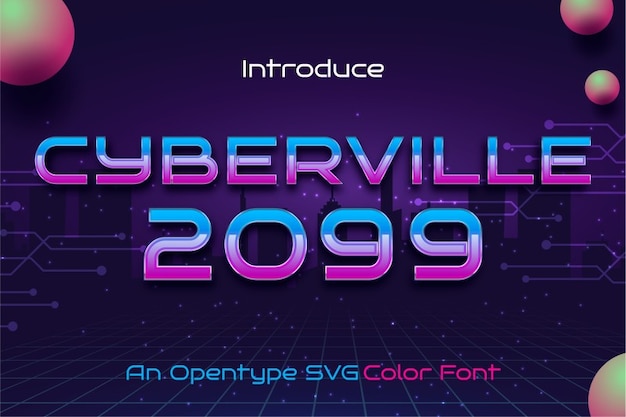
Cyberville 2009 is a neon-charged, futuristic typeface that pulses with retro-tech and synthwave energy. Its sleek, digital-inspired letterforms glow like city lights in a cyberpunk world, perfect for tech branding, gaming, and sci-fi aesthetics. Blending nostalgia with a high-tech edge, Cyberville 2009 brings a bold, electrifying vibe straight from the digital future